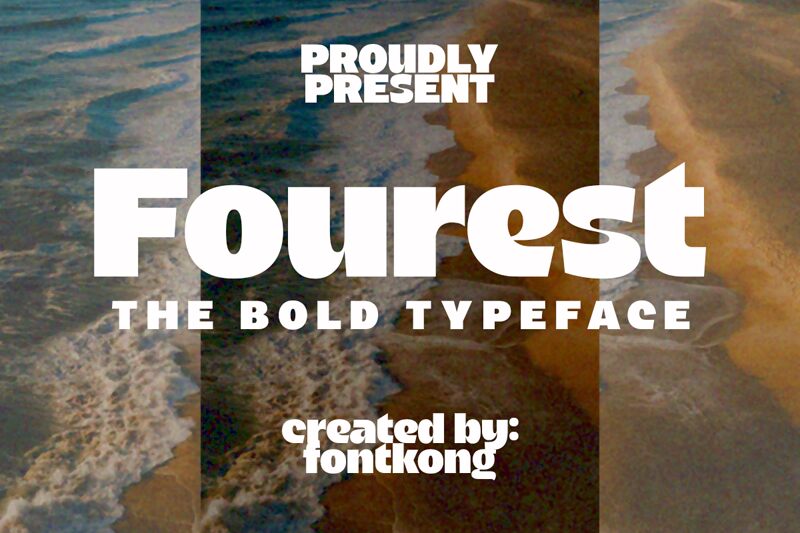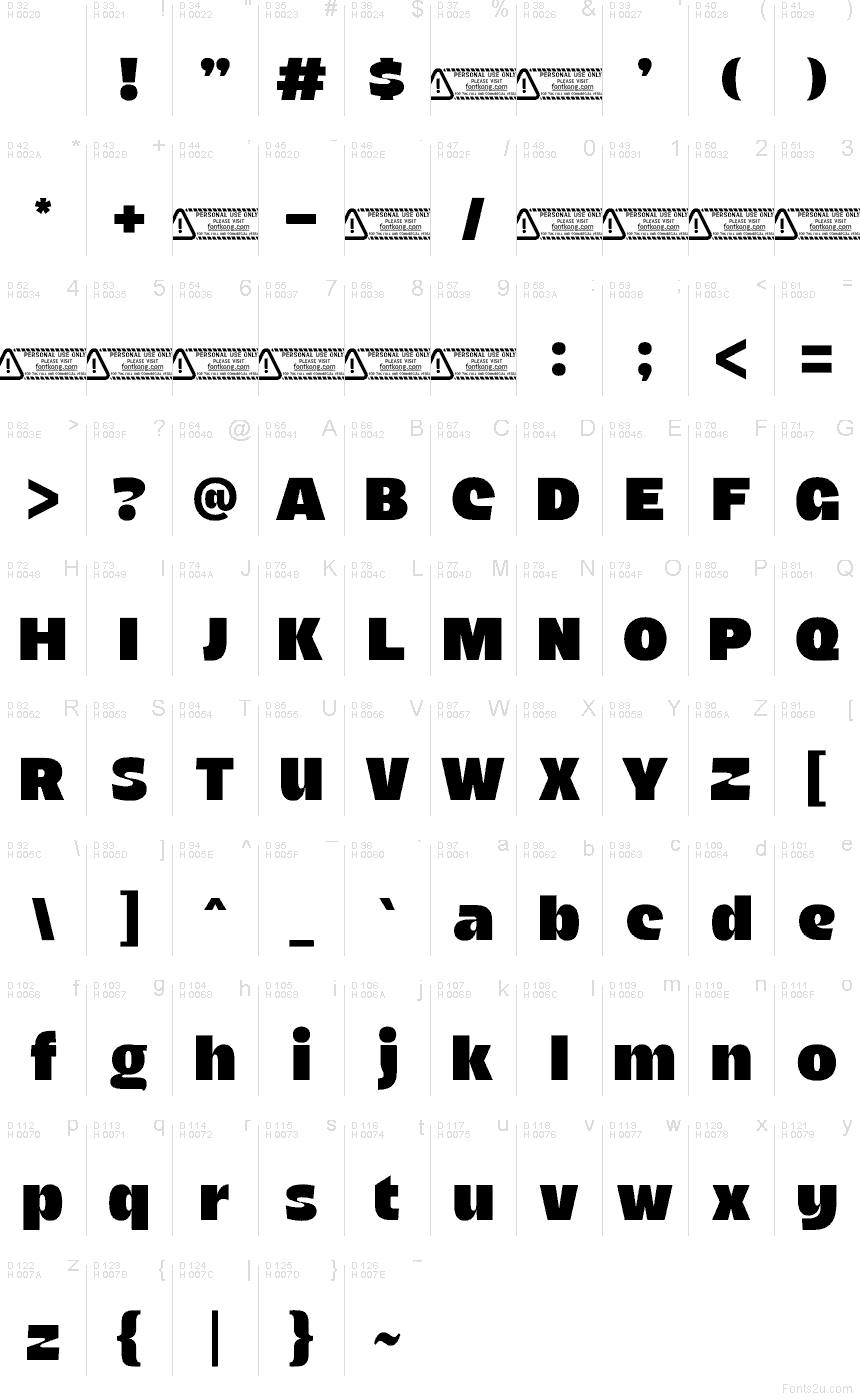
Fourest font by Kong Font is a free chunky sans serif font, with a typeface feel that’s all muscle and clean punch. Its wide, squared shapes and slightly softened corners read like cut vinyl—bold, steady, and unapologetically loud—while the tight rhythm keeps words packed and energetic.
Using Fourest, headlines stay legible on posters, streetwear graphics, sports branding, YouTube thumbnails, packaging, event flyers, app splash screens, and logo drafts. This free font shines when you set it big and let the black shapes do the talking; pair it with a light, neutral sans for body copy to keep the contrast crisp.